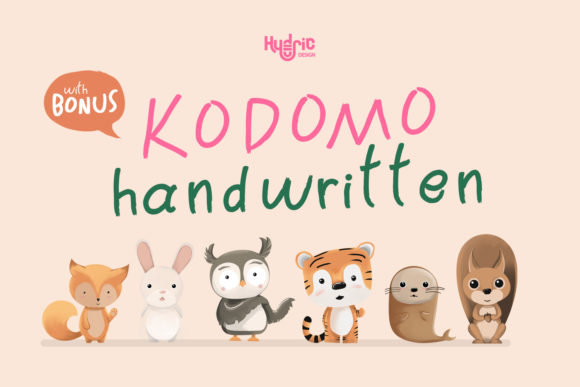
Welcome to the world of Kodomo Handwritten Font, a captivating script font family that will ignite your creativity and transform your designs into whimsical masterpieces. Kodomo, meaning "child" in Japanese, captures the essence of childhood innocence, wonder, and boundless imagination.
Crafted with meticulous care by Hydric Design, Kodomo Handwritten Font is a true gem in the world of typography. Its playful strokes and charming imperfections evoke a sense of nostalgia, warmth, and whimsy. From greeting cards to illustrations, quotes to quaint branding, book covers to children's books, packaging to social media graphics, Kodomo Handwritten Font will add a touch of delight and personality to every project.
With Kodomo Handwritten Font, you have the power to create designs that speak to the child within. Its sweet and drolly handwritten style is perfect for capturing the magic of childhood memories, the joy of playtime, and the limitless possibilities of a young mind. Let Kodomo Handwritten Font transport your designs into a realm of wonder and enchantment.
Step into the realm of Kodomo Handwritten Font and discover a world where creativity knows no bounds. Dive into the depths of your imagination and let the whimsical strokes of this font guide you on a journey of storytelling and artistic expression. As the tip of your pen glides across the digital canvas, Kodomo Handwritten Font will transform your words into charming illustrations, your ideas into heartwarming narratives, and your designs into captivating visual wonders.
So, dear adventurer of the digital realm, embrace the magic of Kodomo Handwritten Font and embark on a creative odyssey that will leave your audience spellbound. Let your designs dance with delight, play with imagination, and ignite the fires of wonder in the hearts of those who behold them. Kodomo Handwritten Font awaits you, ready to unlock the boundless creativity that lies within.